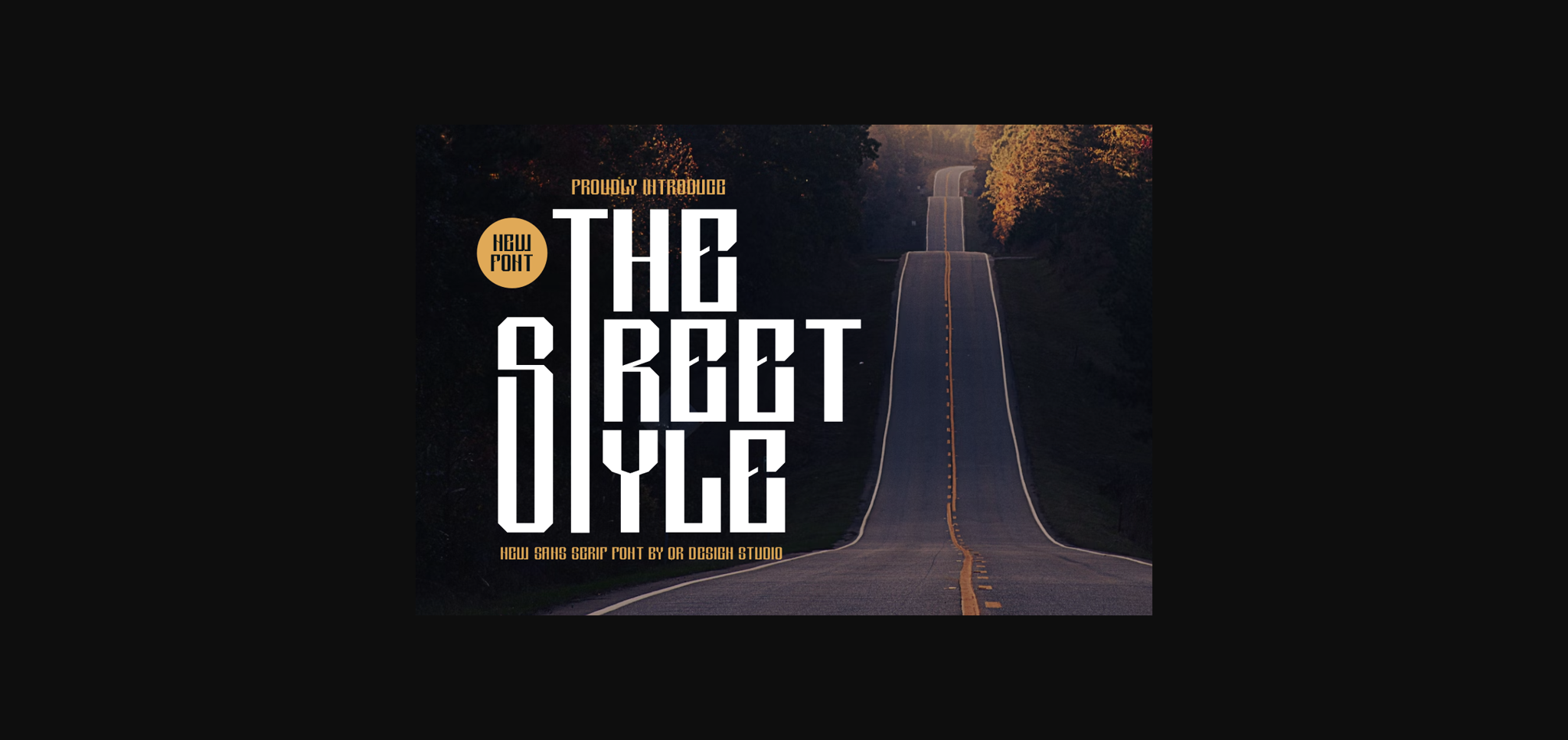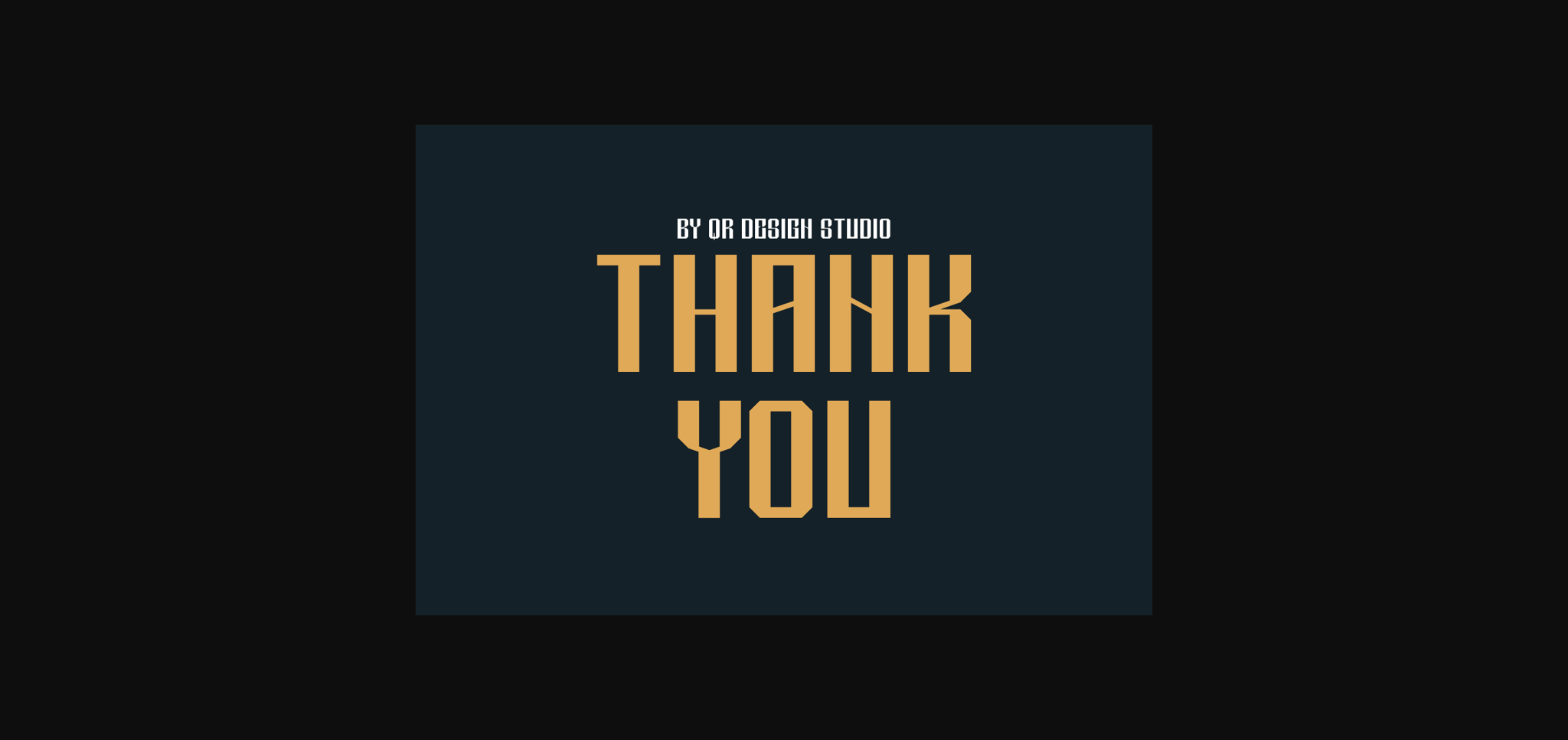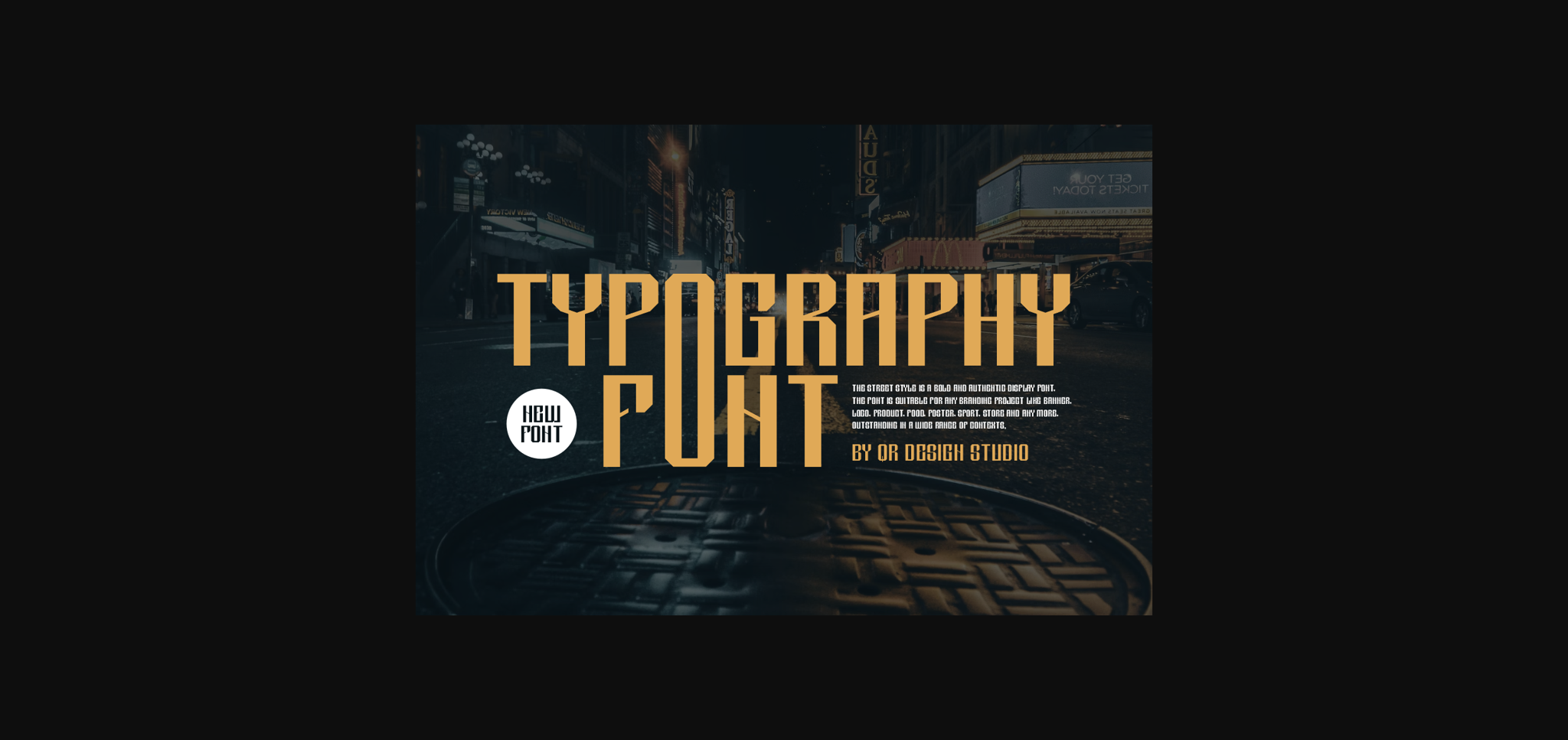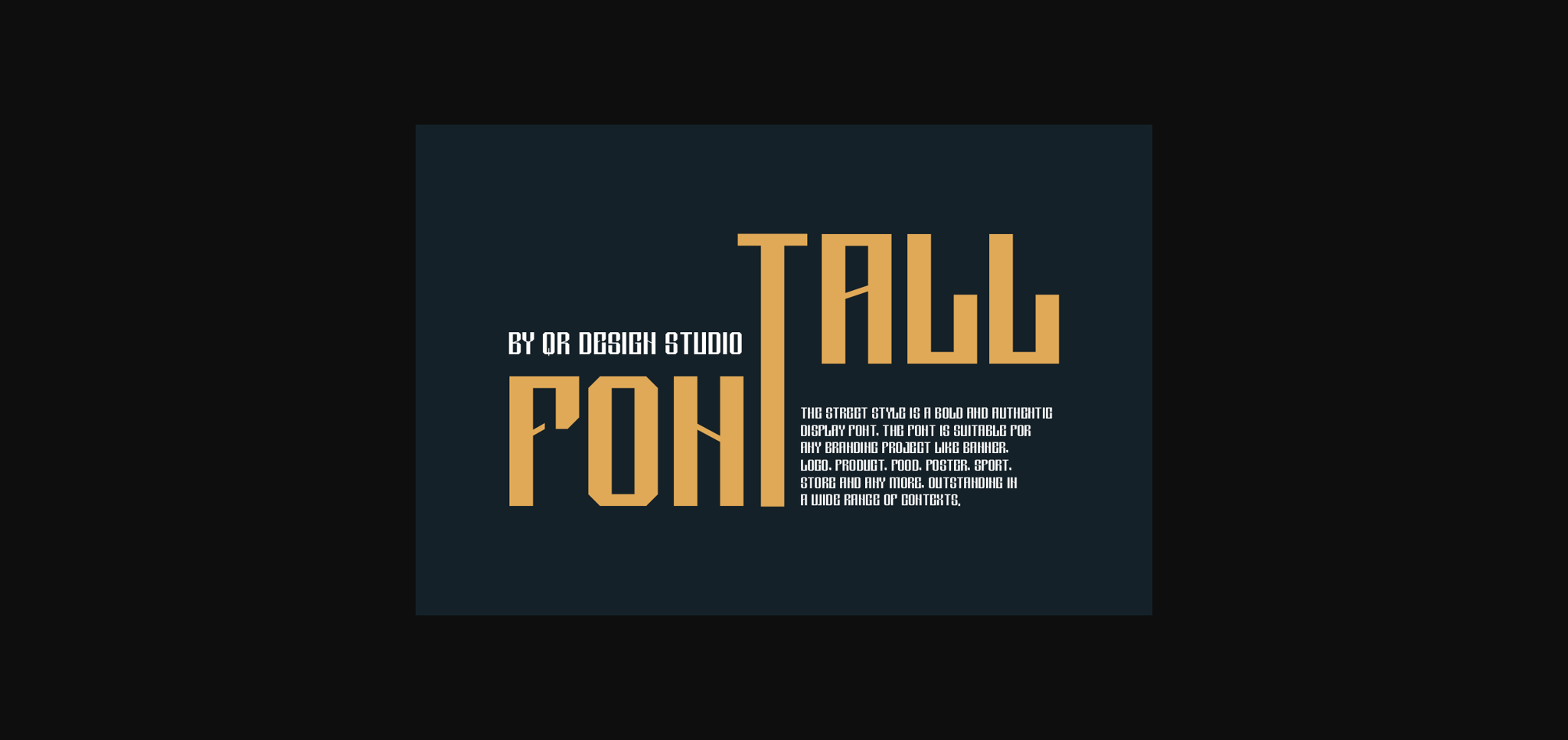
About The Street Style Font
The Street Style Font is a bold and authentic display font.
The font is suitable for any branding project like logo, sport, and many more.